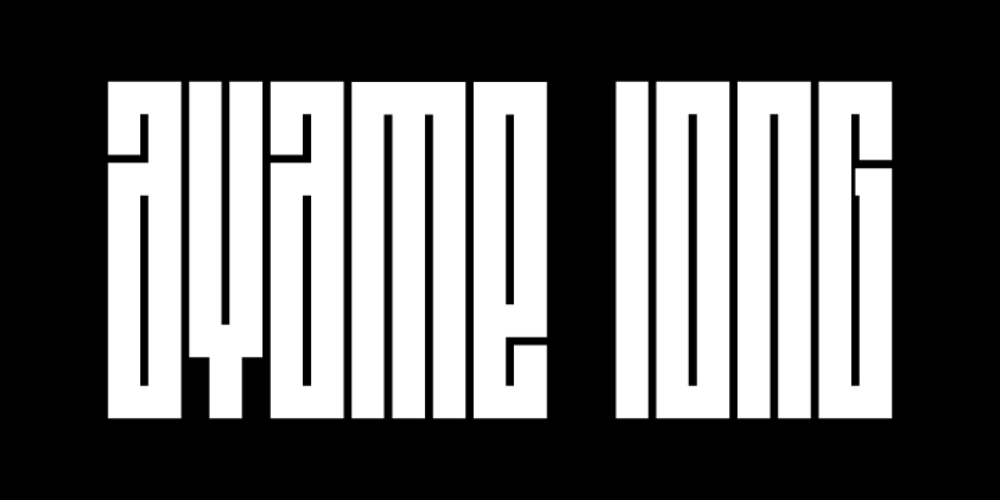
Alt Ayame Long Font Family was designed by Andreas Leonidou and published by ALT. Alt Ayame Long contains 2 styles and family package options. A long version of my Ayame font. Ayame is a display font which looks great on posters, logos, and titles. Ayame Long is a 2-weight family with a heavy retro look. Works great with the regular version of Ayame you can check out the original.